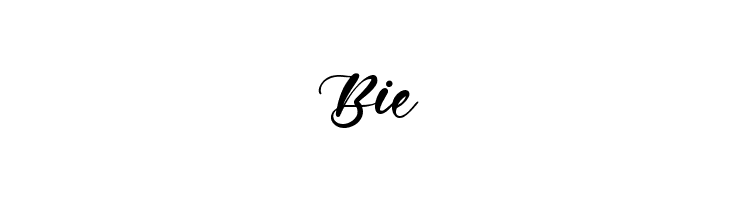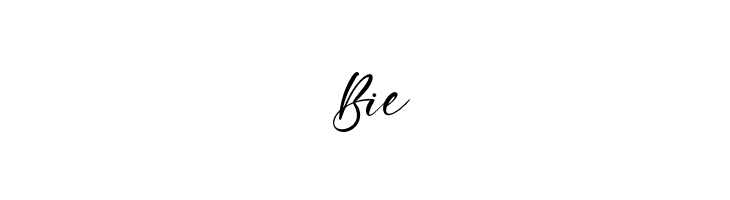
A sophisticated script font with flowing, connected strokes.
A modern, elegant script font with flowing, cursive characters and intricate details.
A graceful, cursive script font with elegant, flowing lines.
An elegant, cursive handwritten font with smooth, flowing strokes.